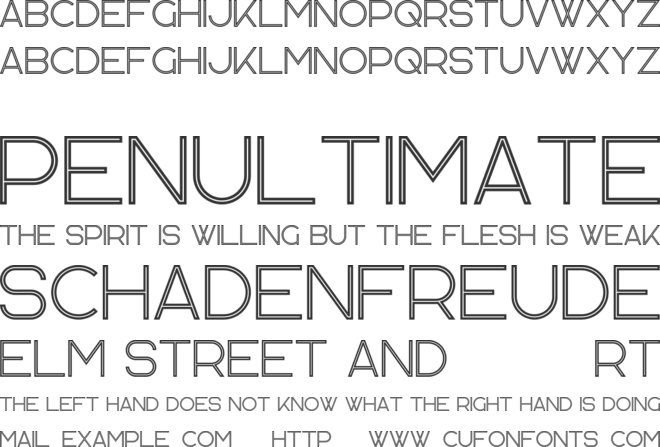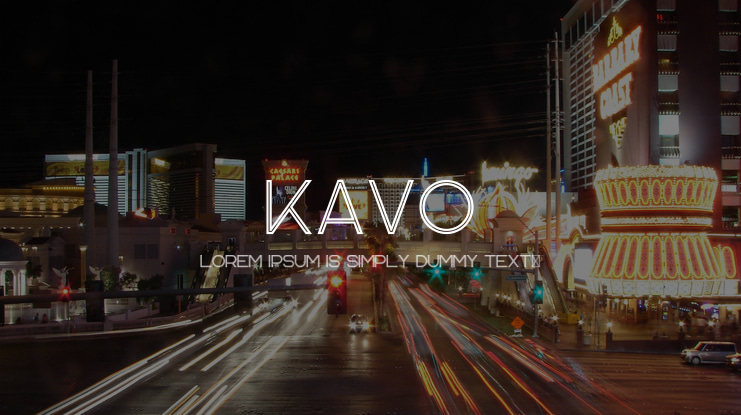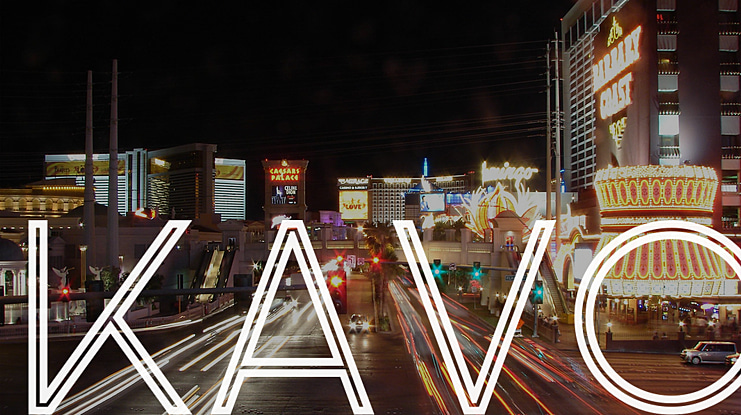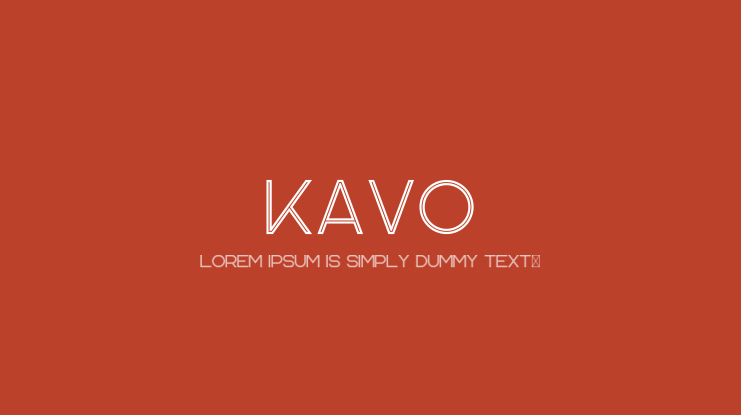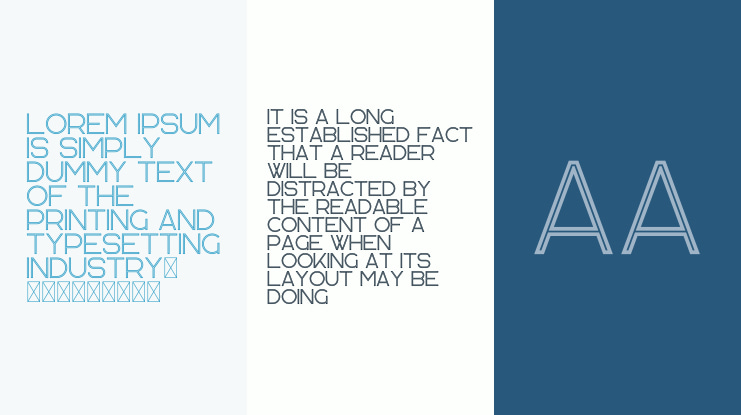
Kavo Font
Introducing Kavo Inline Typeface - 3 weight + 6 Logo Templates
Kavo is modern, inline typeface with 3 weight, ligatures, 6 awesome vector designs, 6 logo templates and multilingual support. It's a very versatile font that works great in large and small sizes.